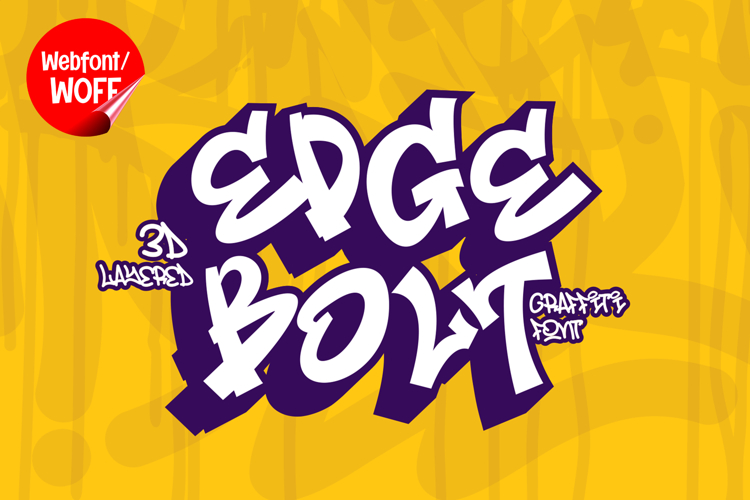
Edge Bolt | 3D Shadowed Graffiti Webfont for Bold Urban Idea
Edge Bolt is a 3D shadowed graffiti webfont designed to bring powerful street energy and dimensional depth into modern website design. Inspired by graffiti murals, bold throw-up lettering, and urban shadow effects, this font features thick shapes combined with layered shadows that create a striking and high-impact visual identity. It is an excellent choice for projects that aim to deliver bold urban aesthetics with strong visual presence.
Edge Bolt includes a complete set of uppercase characters designed with graffiti-inspired forms enhanced by 3D shadowed construction. The bold letterforms and dimensional shadows create depth and movement, giving the typography a dramatic street-art appearance. These characteristics make it ideal for headlines, banners, hero sections, promotional graphics, and featured content where strong visual impact is essential.
In addition to letters, the font includes numbers and punctuation, allowing flexible usage across various parts of a website. It works well for streetwear branding, gaming websites, music platforms, creative portfolios, and digital campaigns. Each character maintains a consistent shadowed graffiti style, ensuring a cohesive and unified visual identity throughout the design.
With multilingual support, Edge Bolt includes a wide range of accented characters, making it suitable for international websites and global audiences. This ensures content remains clear and visually consistent across different languages while preserving the bold urban aesthetic.
The 3D shadowed graffiti style of Edge Bolt makes it especially suitable for urban-themed websites, esports branding, hip hop projects, entertainment platforms, and youth-oriented digital campaigns. Its layered shadow effects and energetic forms create a sense of movement and depth, helping websites stand out in visually competitive environments. The graffiti-inspired structure adds authenticity and strong street-style character.
Despite its bold and decorative appearance, Edge Bolt is designed with readability in mind. The spacing and proportions are carefully balanced to ensure clarity, particularly in display sizes. This allows designers to use the font effectively for impactful headings and short content without sacrificing usability.
Edge Bolt is a webfont that combines graffiti aesthetics with 3D shadowed effects and modern digital performance. Its bold forms, dimensional depth, and urban character create a distinctive typographic presence that enhances website design. For projects that require a strong, edgy, and visually engaging graffiti font, Edge Bolt offers a powerful and versatile solution.